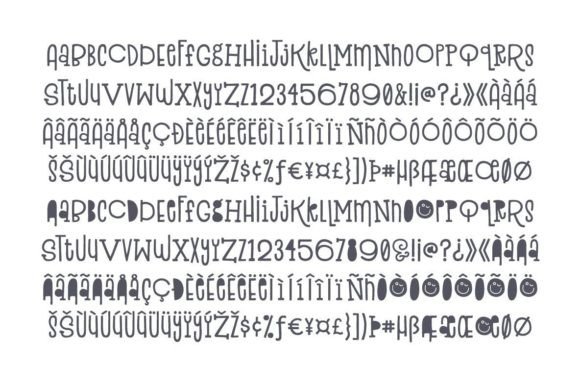
Anything Goes is a charming font with a quirky, hand-drawn style. The bouncy characters include a mixture of sans and slab serif styles. It is perfect for logos, children’s books, package design, typographic posters, etc. As the name says: Anything Goes!
Anything Goes Font